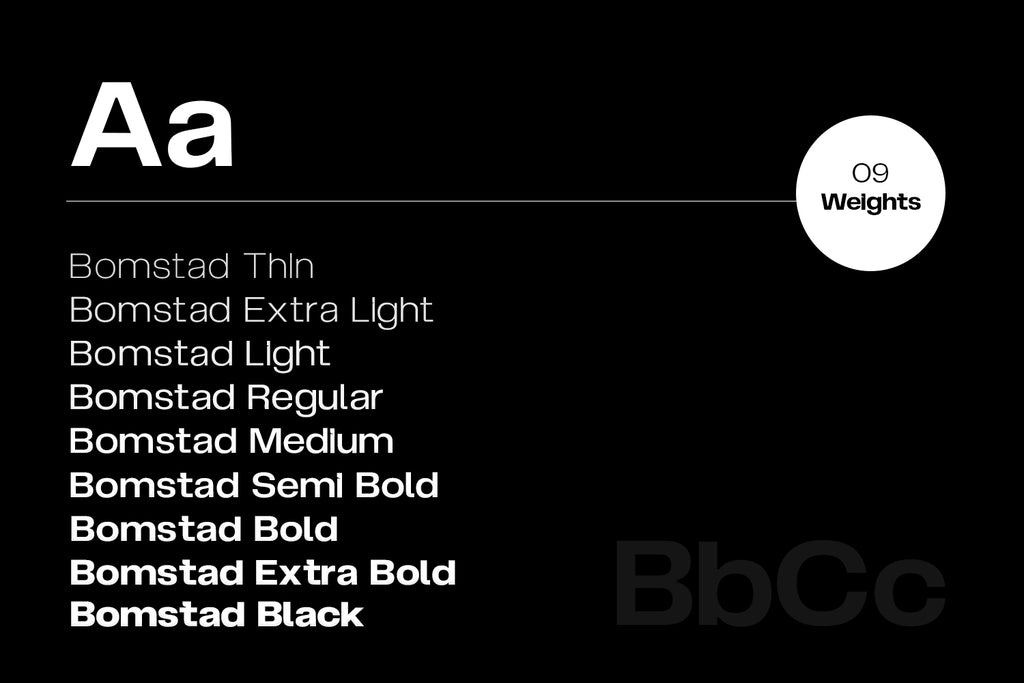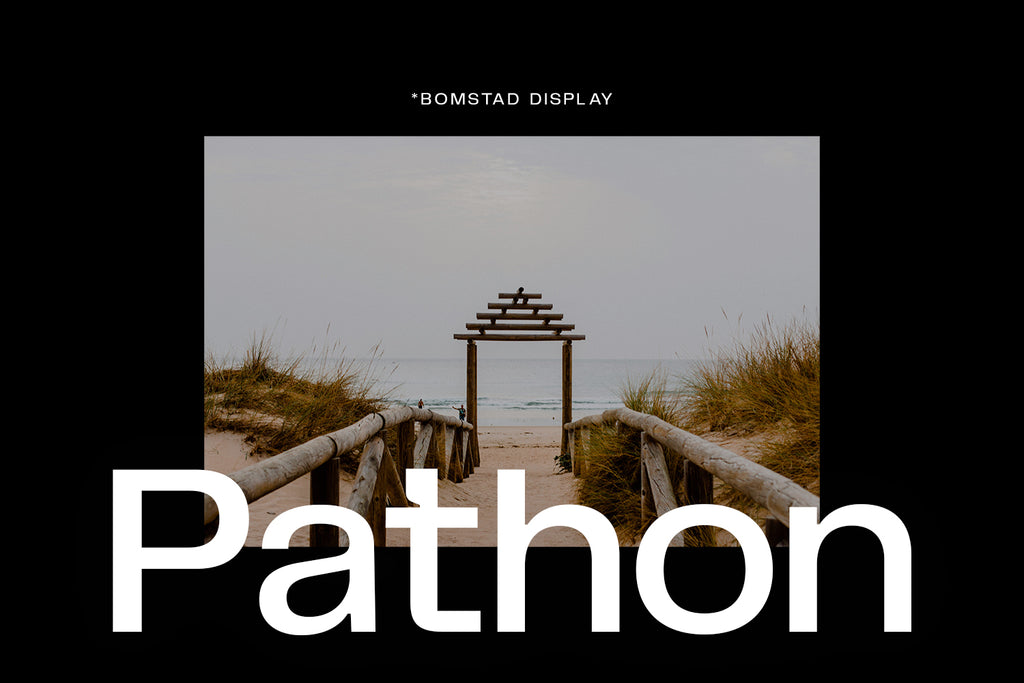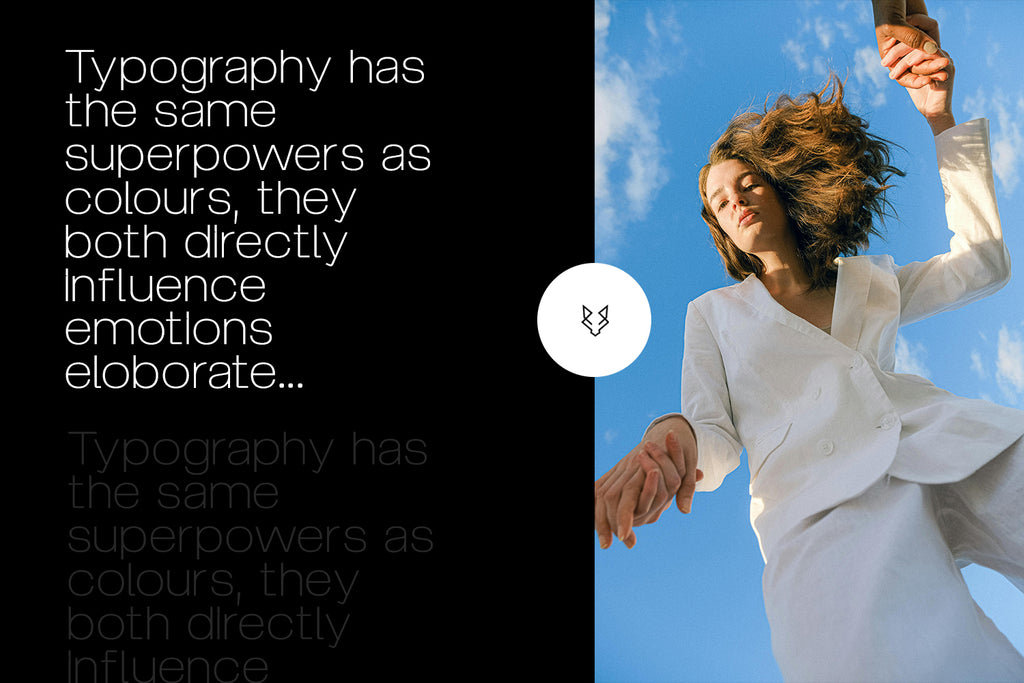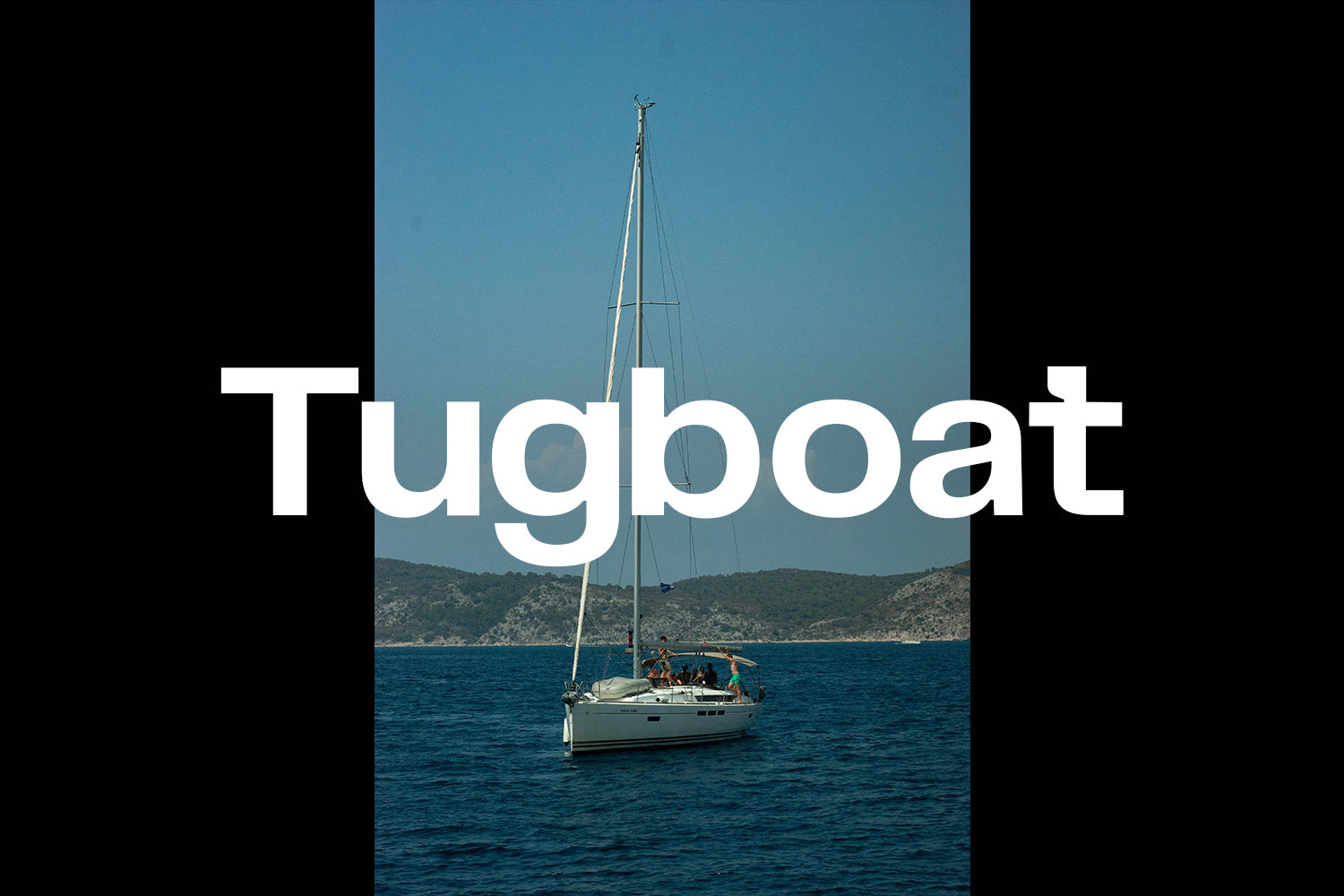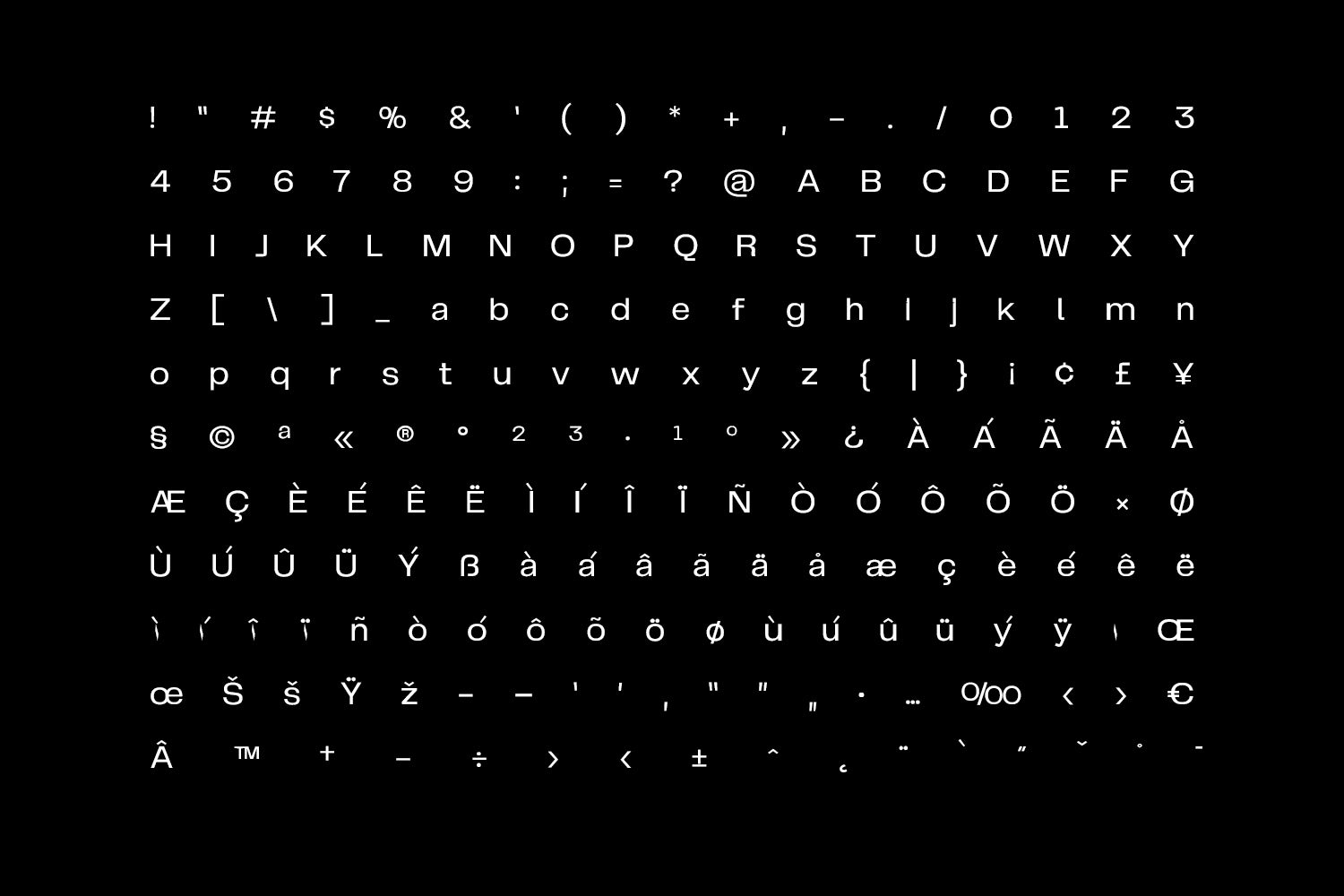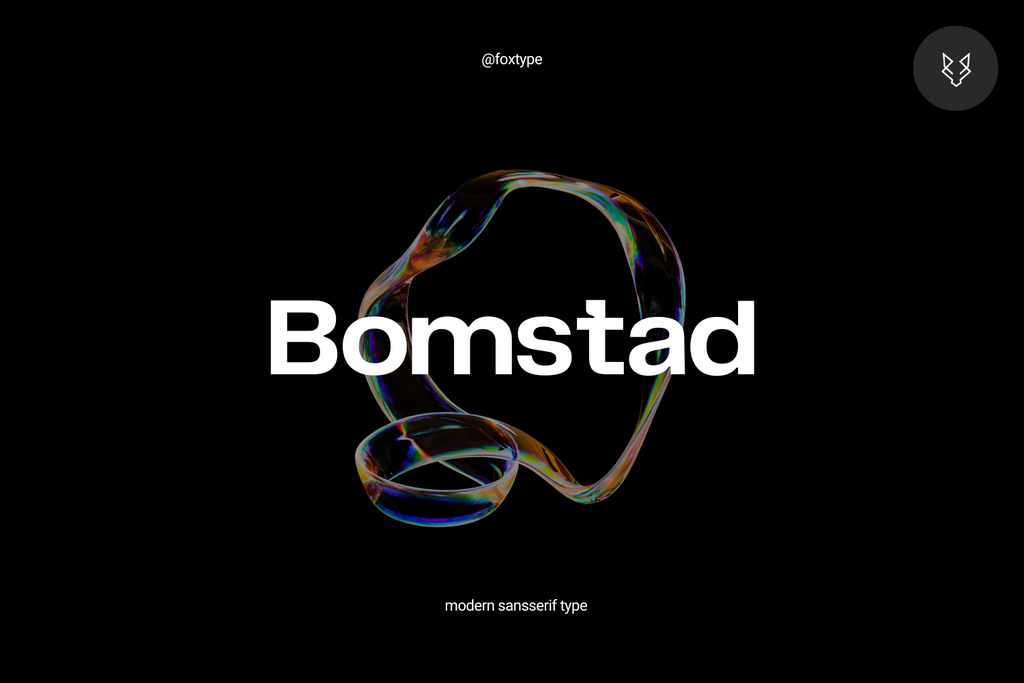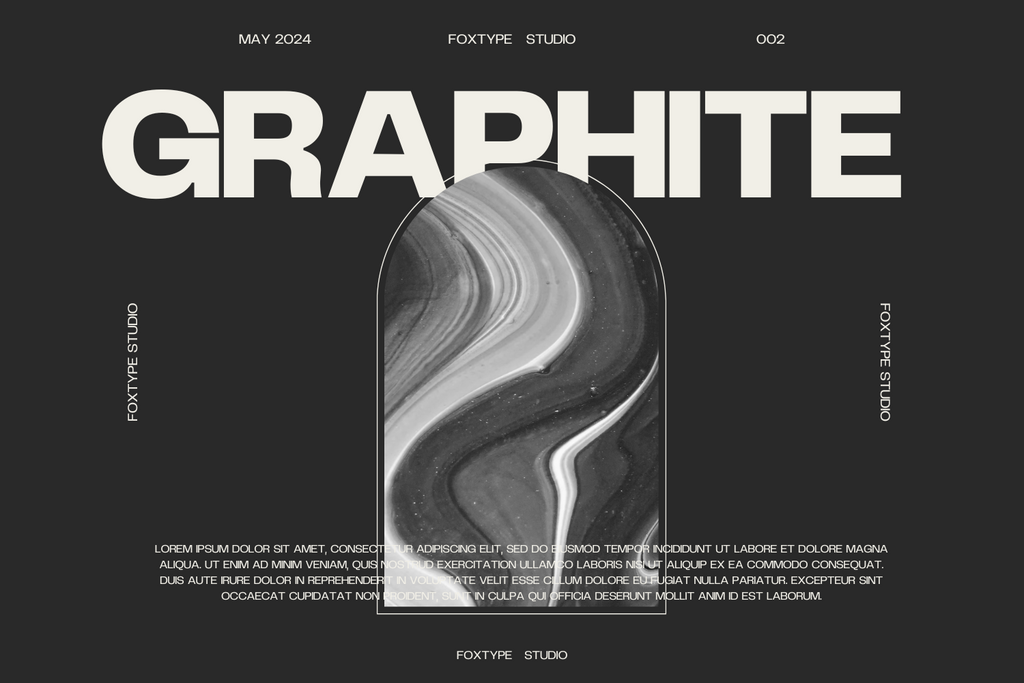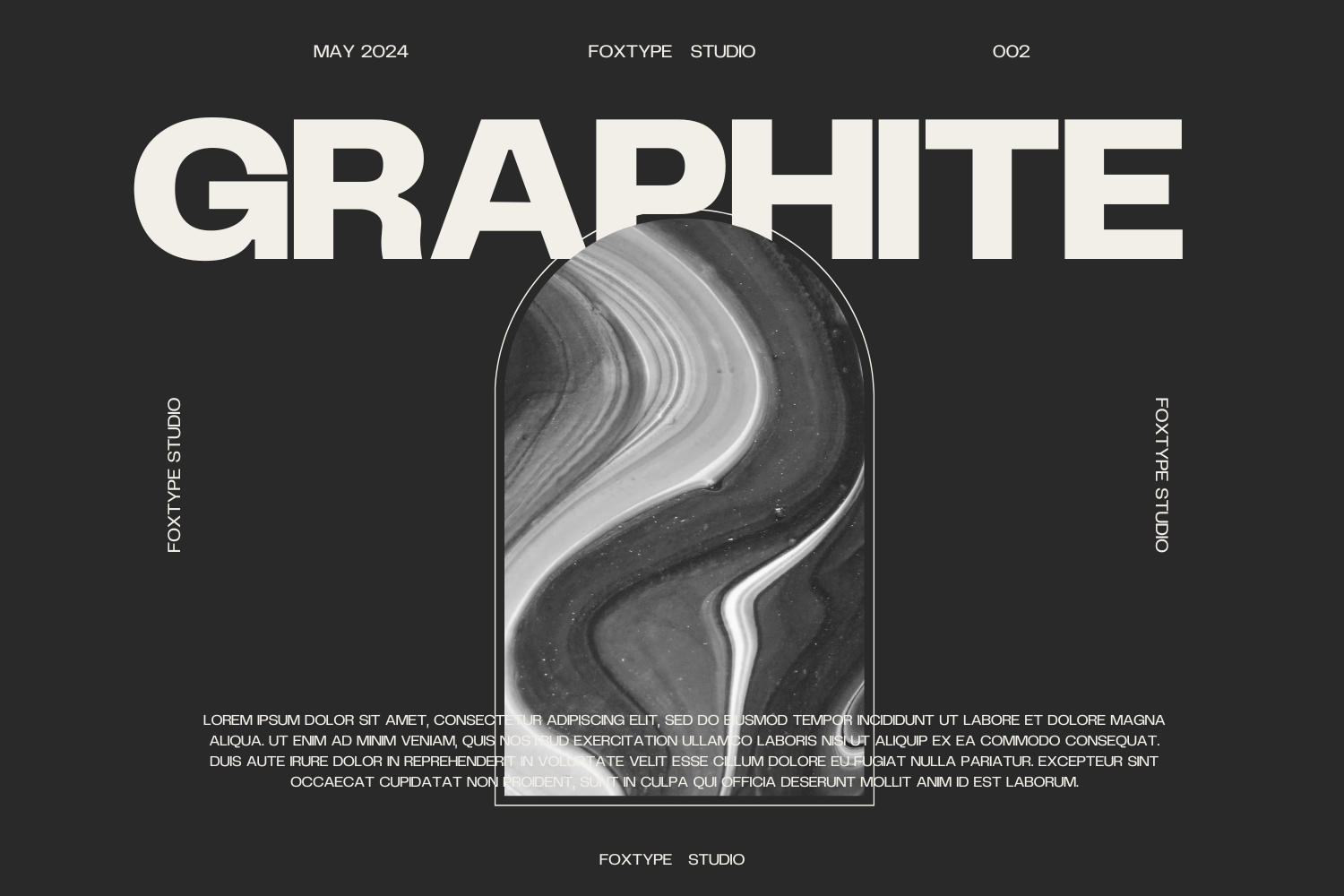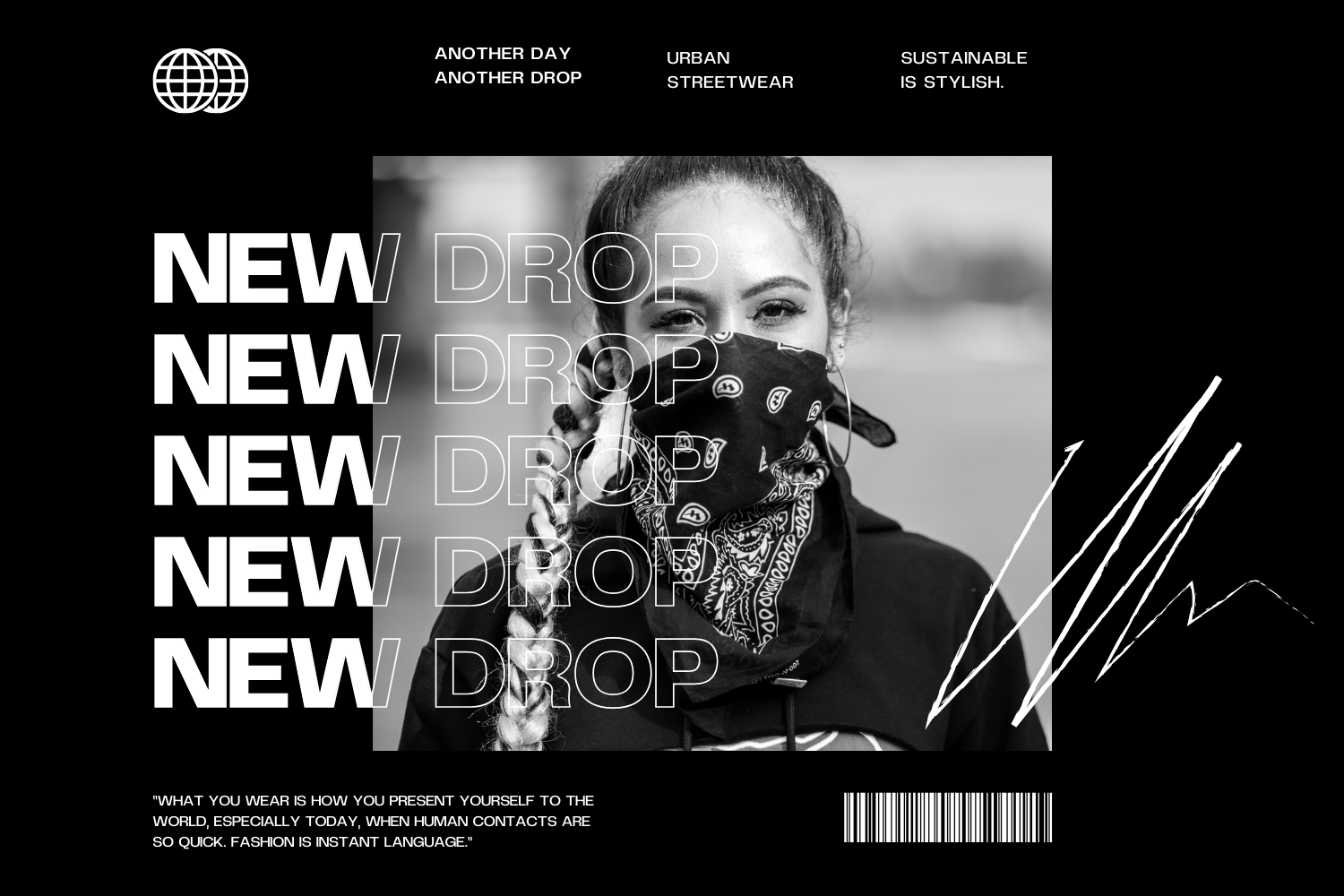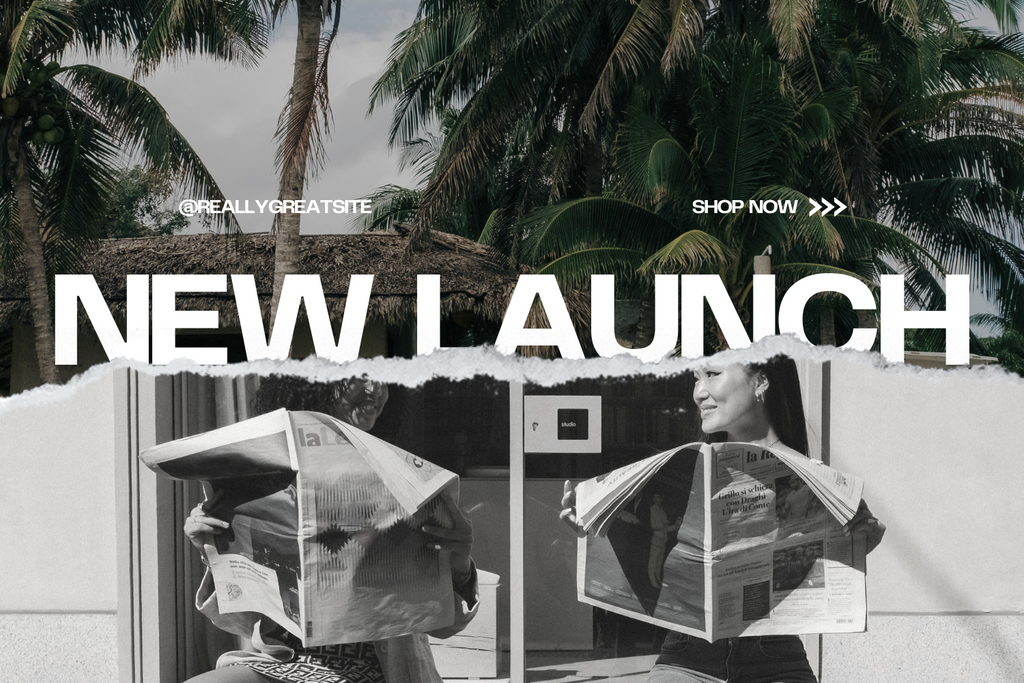
Bomstad Display Typeface
Introducing Bomstad, a meticulously crafted modern sans-serif typeface perfect for a wide range of design projects. With 9 versatile weights, Bomstad excels in creating striking headlines, captivating posters, and sophisticated branding materials. Its clean lines and contemporary style make it an ideal choice for magazine covers, logo designs, paragraph texts, and more.